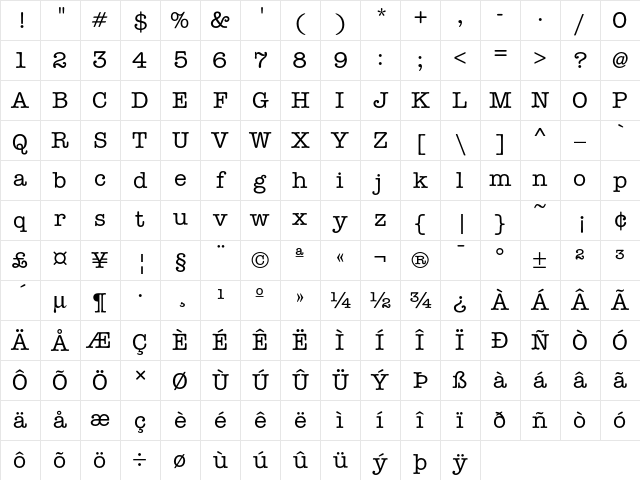
AmTypewriterEF uses fixed-width spacing throughout, giving it the structured, systematic character associated with coding environments and technical documentation.
Pro Tip: Use AmTypewriterEF with slightly increased line-height for extended reading - fixed-width spacing can feel dense in longer passages without extra breathing room.